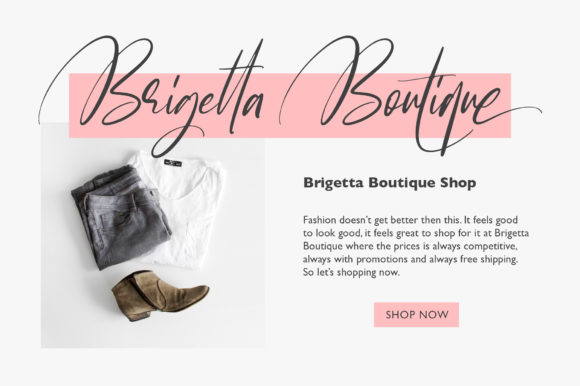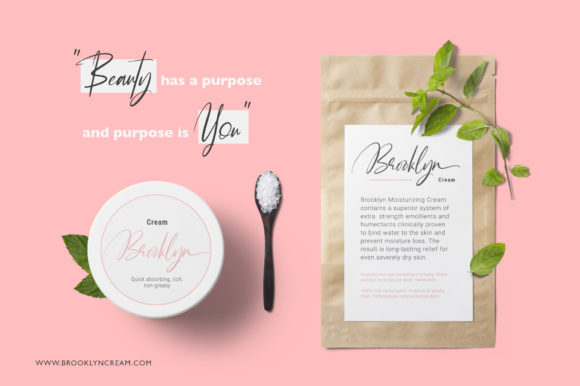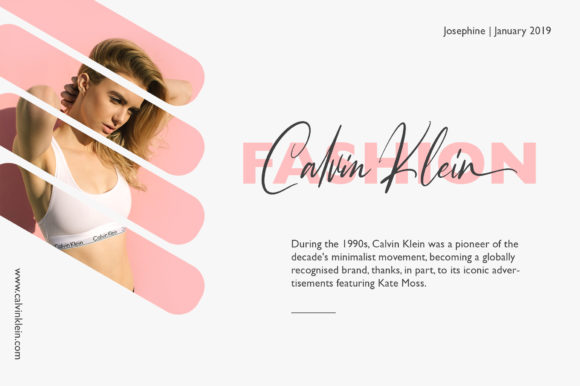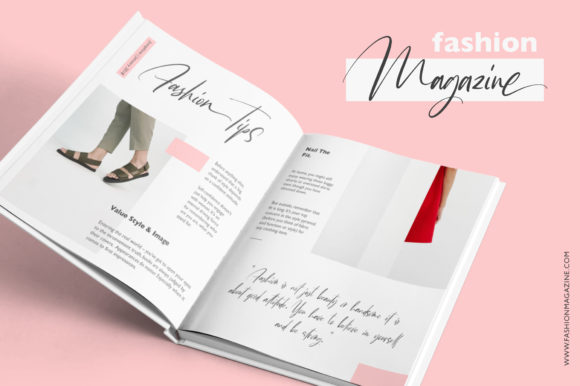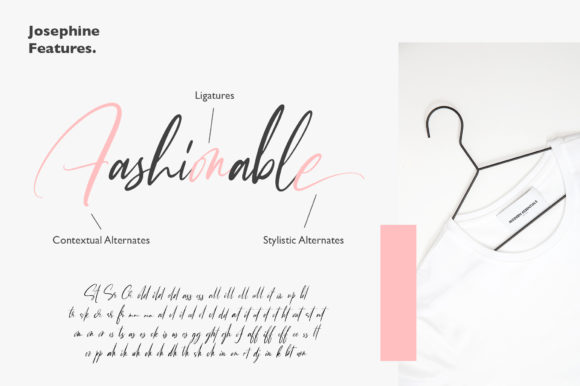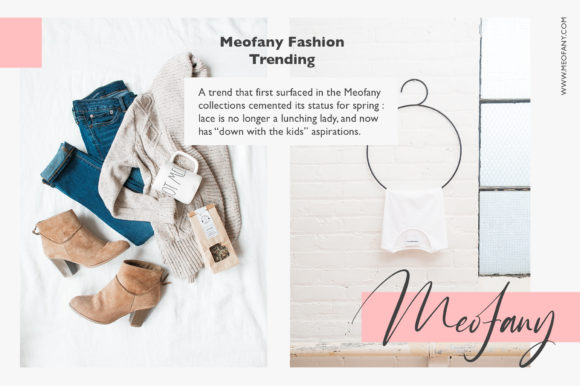
Introduction to Josephine Script Font
Have you ever been working on a creative project, pouring your heart and soul into every detail, only to find that the perfect font eludes you? That’s where the Josephine Script Font comes in – a game-changing design resource that can elevate your project from ordinary to extraordinary.
With its fresh and stylish look, the Josephine Script Font is perfect for logotypes, branding, magazines, website or blog headlines, packaging, quotes, invitation cards, greeting cards, business cards, and much more! This high-quality font is a must-have for designers who want to add a touch of sophistication and elegance to their work.
Key Features of Josephine Script Font
- The Josephine Script Font is a beautiful, high-quality script font that’s perfect for creative projects, such as wedding invitations, greeting cards, and more.
- The font features a transparent background, allowing for seamless integration with any background image or design element.
- With its elegant and sophisticated design, the Josephine Script Font is ideal for creating high-end designs, such as luxury branding, packaging, and advertising materials.
- The font is available in a single weight, but its versatility makes it suitable for a wide range of design projects, from formal to casual.
Honest Review: Josephine Script Font
I recently had the chance to work with the Josephine Script Font on a creative project, and I must say it’s been a game-changer. This font is perfect for designers looking for a high-quality, elegant script to elevate their designs.
- ✨ Beautiful, handwritten feel that adds a personal touch to any design
- ✨ High-quality design that looks great on both light and dark backgrounds
- ⚠️ No transparent background option, which can make it tricky to use on complex designs
- ⚠️ Limited character set, which can be a problem for designers working on long-form content
Overall, I’m really impressed with the Josephine Script Font. While it may have some limitations, its beautiful design and high-quality feel make it a great addition to any designer’s toolkit. Whether you’re working on a creative project or just need a stylish font for your next design, the Josephine Script Font is definitely worth checking out.
The Josephine Script Font is perfect for various design projects, including wedding invitations, branding materials, and social media graphics. You can also use the font to create beautiful quotes, captions, and titles.
Tips for Getting the Most Out of Josephine Script Font
To get the most out of the Josephine Script Font, experiment with different font sizes, colors, and backgrounds. You can also pair the font with other high-quality fonts to create a unique design style.
Is the Josephine Script Font suitable for large-scale designs?
Yes, the Josephine Script Font is a high-quality design resource that’s suitable for large-scale designs, including billboards, signage, and other creative projects. Its high-quality vector graphics ensure that it will scale well and remain crisp, even at large sizes.